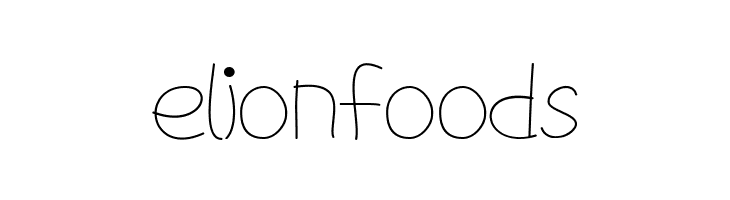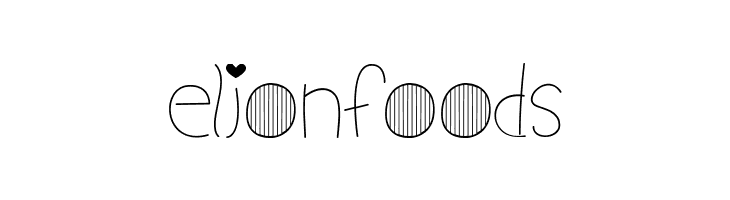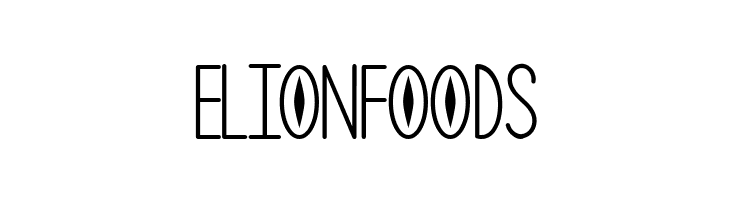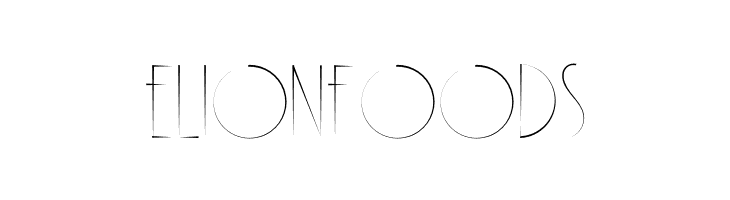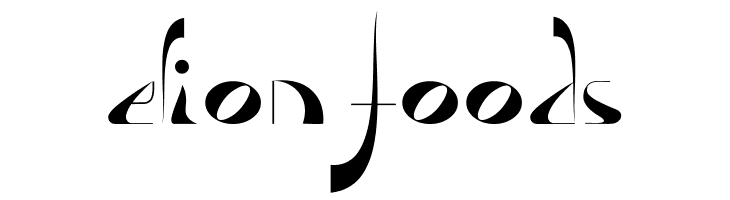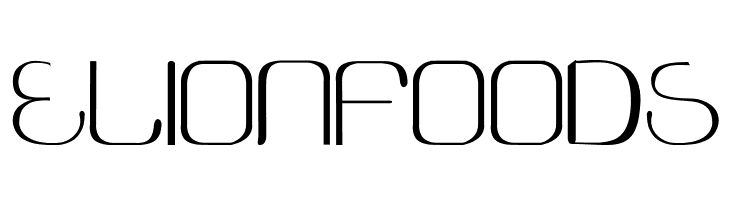
A playful and whimsical font with rounded, elongated letterforms and consistent stroke width.
A playful, handwritten-style font with thin, elongated characters.
A playful, rounded font with elongated letterforms and even spacing.
A playful, hand-drawn font with rounded, elongated characters.
A playful, handwritten font with thin, elongated characters and whimsical elements.
A playful, modern font with elongated, narrow characters and decorative elements.
A sleek, geometric font with elongated characters and high contrast.
An artistic and decorative font with elegant, elongated letterforms and dynamic contrast.
A modern, elegant font with thin, elongated strokes and subtle curves.
A futuristic and sleek font with thin, elongated letterforms and geometric shapes.